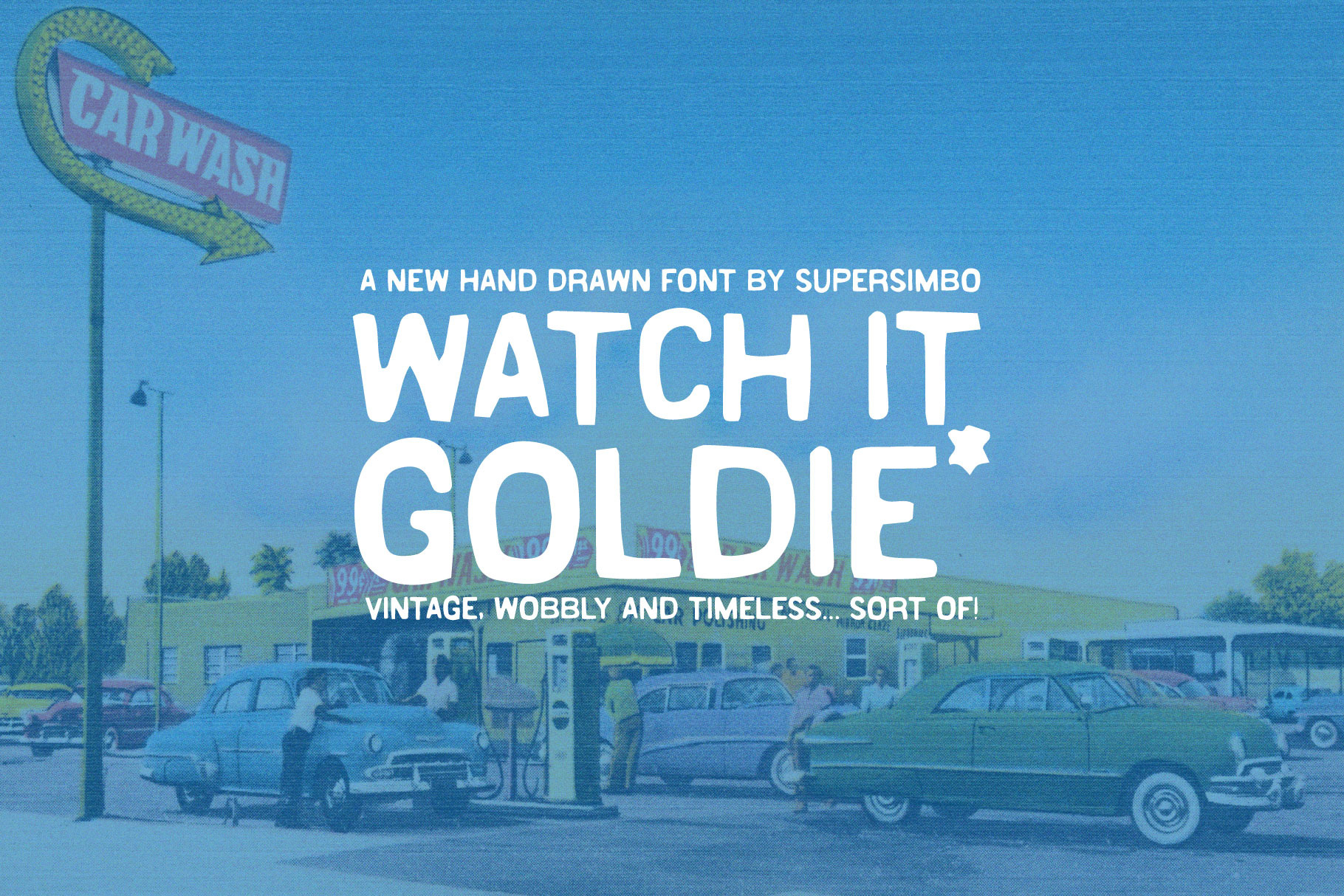
Watch it Goldie | Hand Drawn Font
Watch it Goldie is a hand drawn nod back to a vintage inspired world where everything was done by hand, wobbly and timeless... sort of.